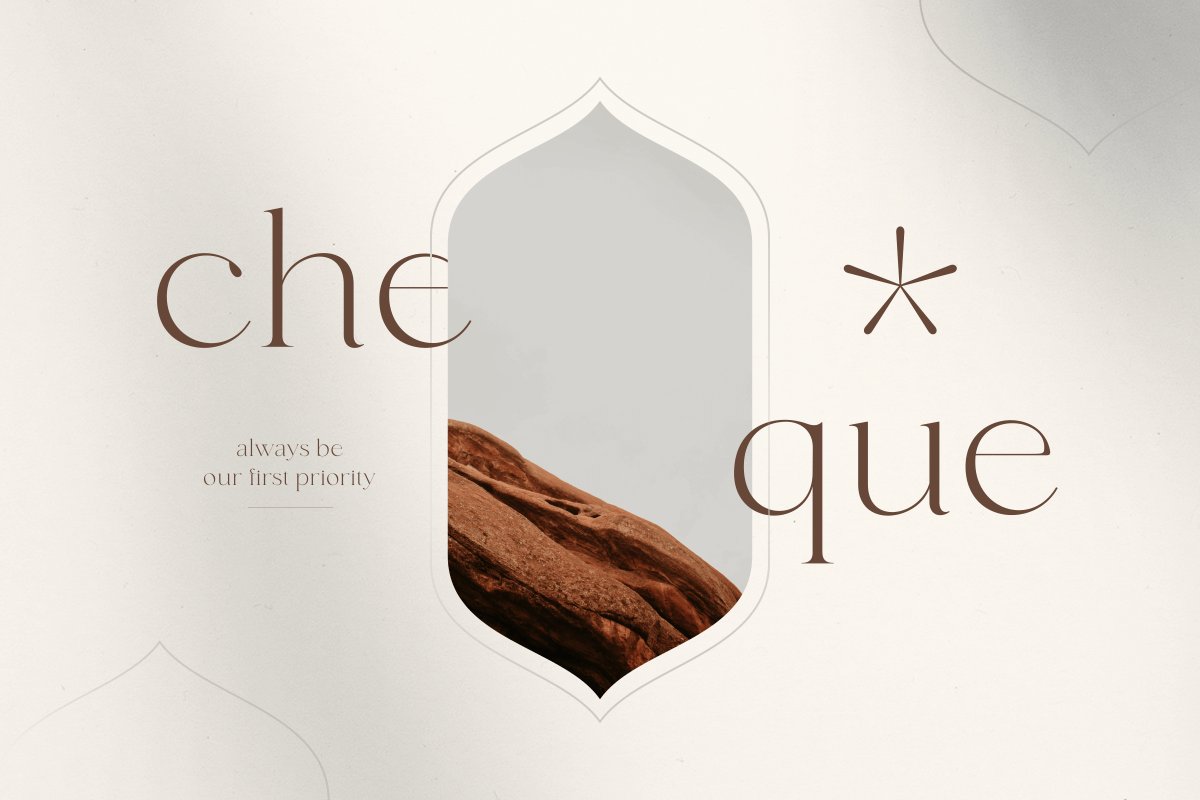
About the fonde elegant chique Font
Now part of Unique & Classy Font Bundle, Get 11 of our best selling font collections for only $29 – Save 80%!Get it Here: https://crmrkt, com/bGowPmfonde is an elegant chique font for brand, logo and quotes design, Based on our experience as a graphic designer who works for a lot of companies, we often are requested to design a logo in a unique style but with an elegant shape
So, we try to brainstorming and create this font to make the idea is going out, This is perfect for BRANDING and LOGO DESIGN, You will get classy, elegant, and certainly unique logos with this font, fonde is also included full set of:uppercase and lowercase lettersmultilingual charactersnumeralspunctuationWhat will you get?fonde